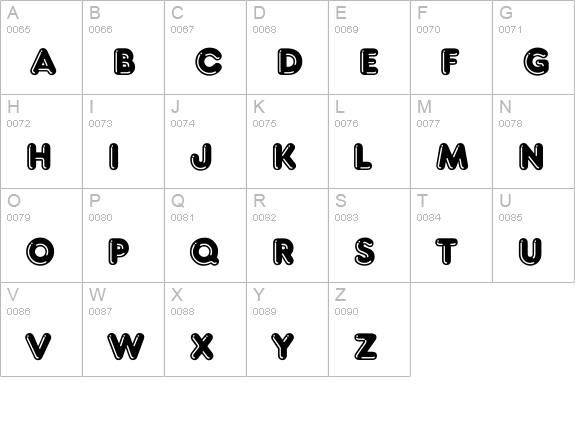
Introducing FrankC font, a versatile and modern typeface that exudes elegance and sophistication. With its clean lines and stylish curves, FrankC font is perfect for a wide range of design projects, from branding and packaging to social media graphics and website designs. This font offers a sleek and professional look that will make your text stand out. The best part? FrankC font is completely free to download at FontsMarket.com. So, whether you're a professional designer looking for a new go-to font or a hobbyist wanting to spice up your projects, FrankC font is the ideal choice. Don't miss out on this fantastic opportunity to enhance your designs with this stunning typeface. Download FrankC font today and elevate your creative projects to new heights!